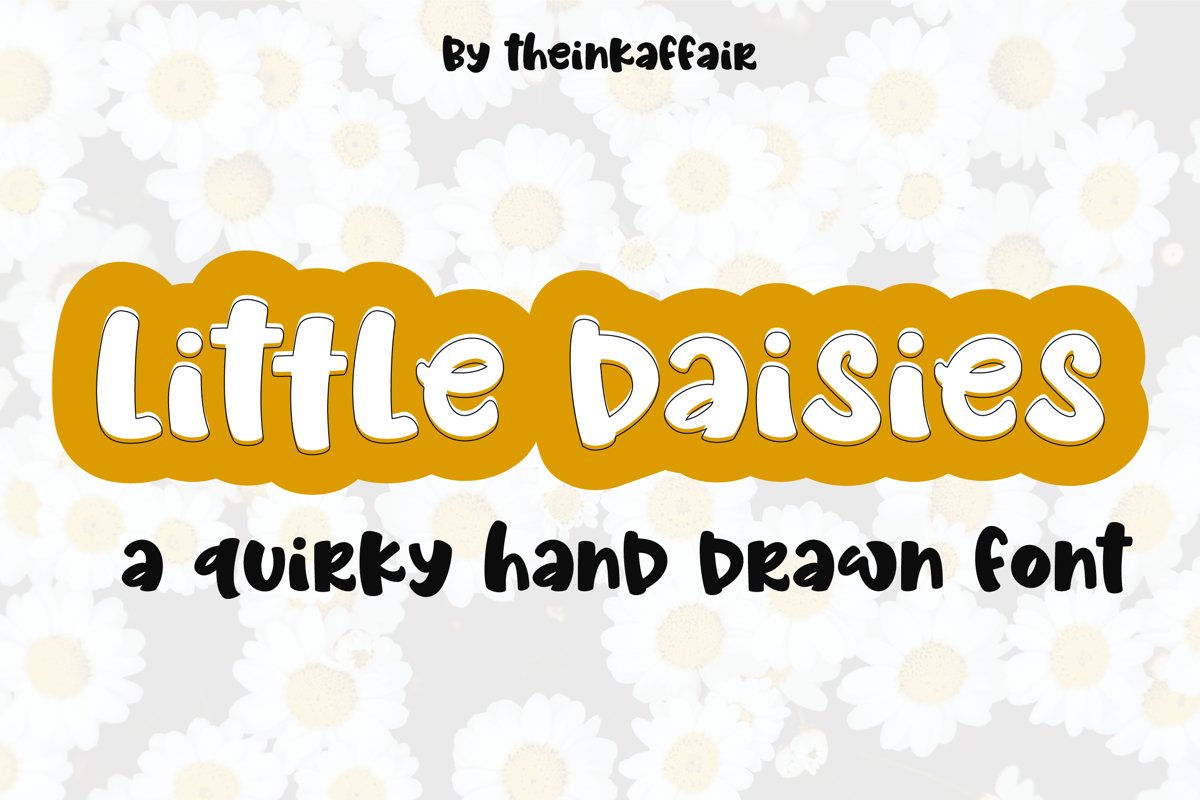
Introducing a quirky hand drawn font, Little Daisies, perfect for cricut/silhouette projects and all design projects from logo, branding to quotes, invitations etc.